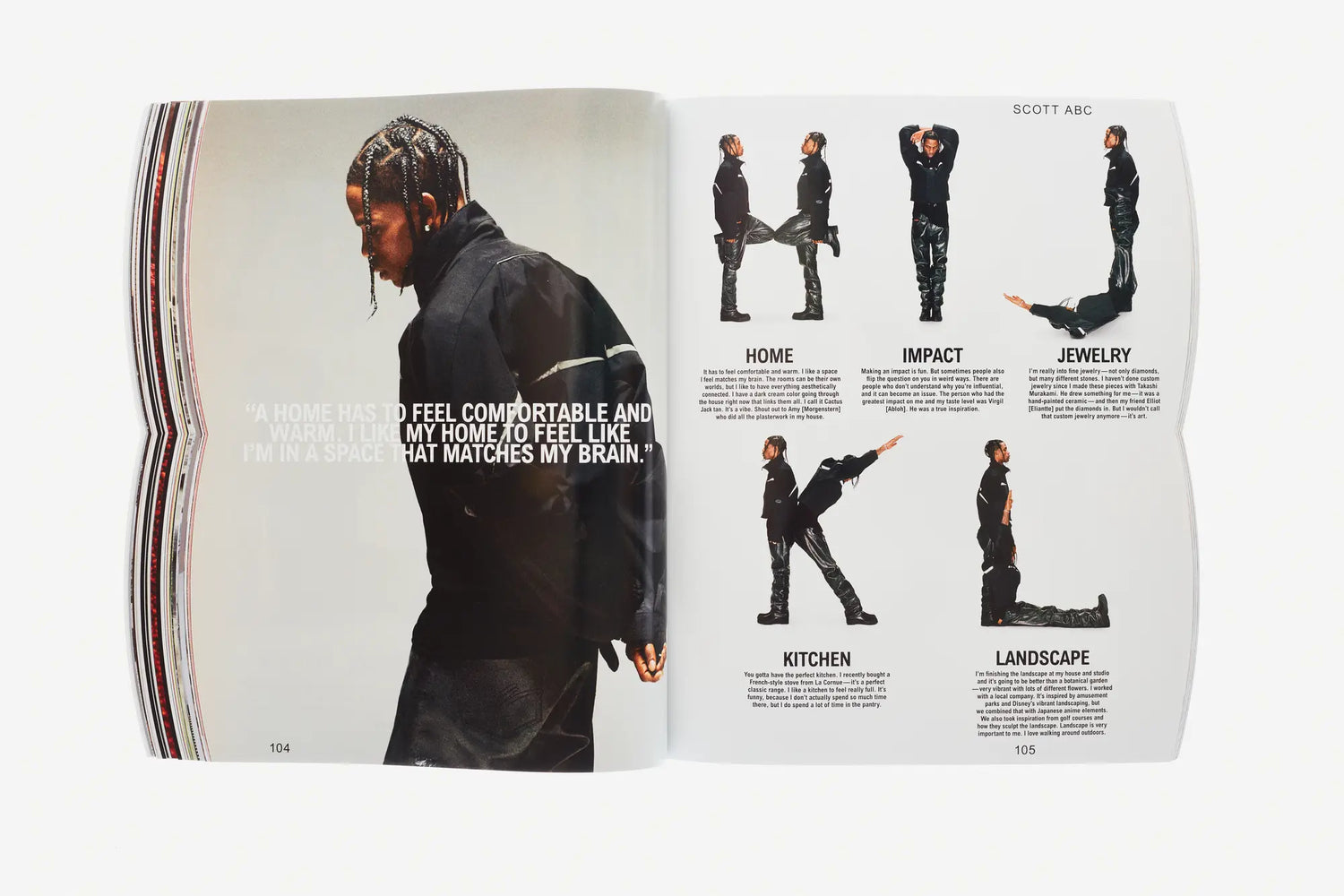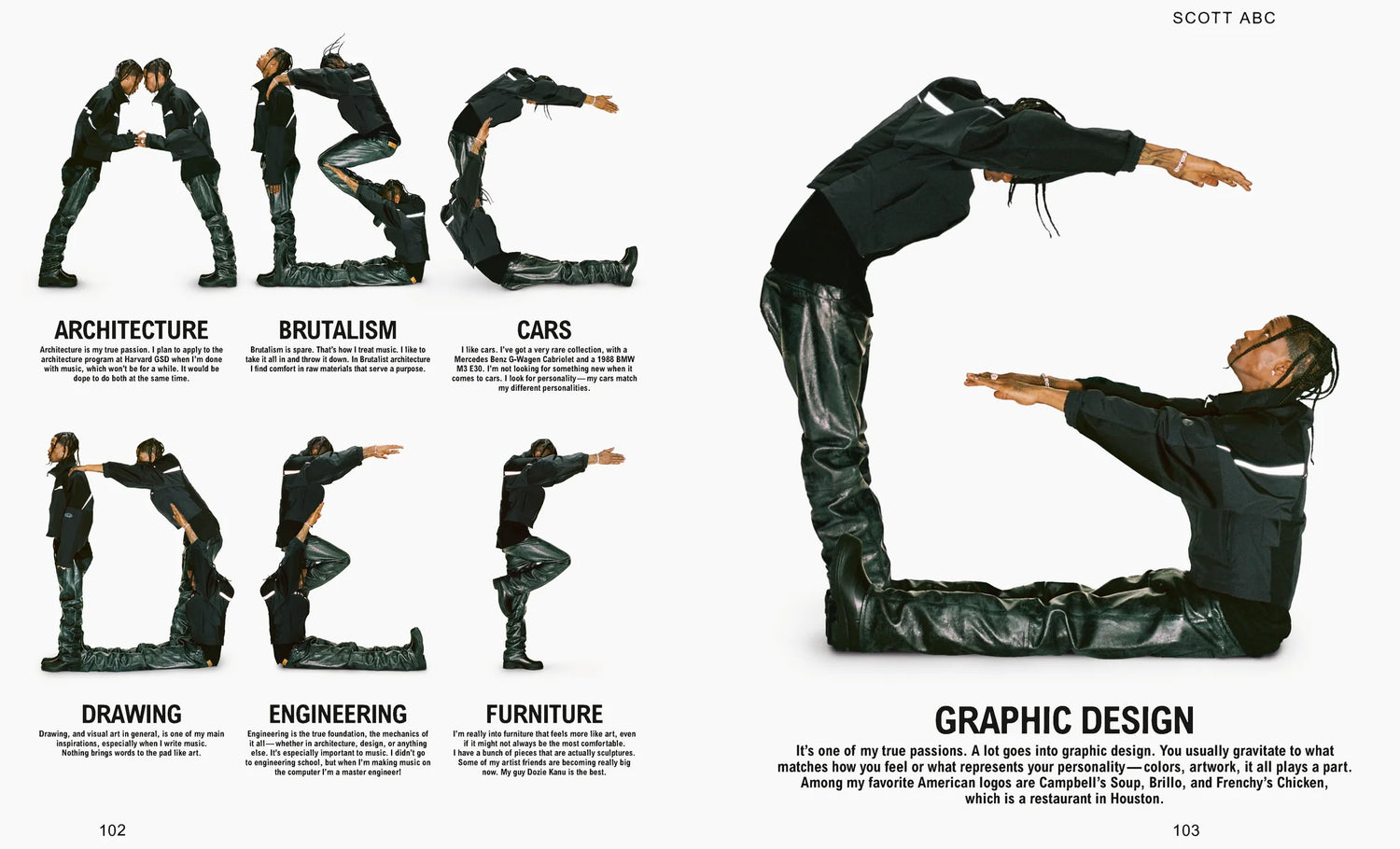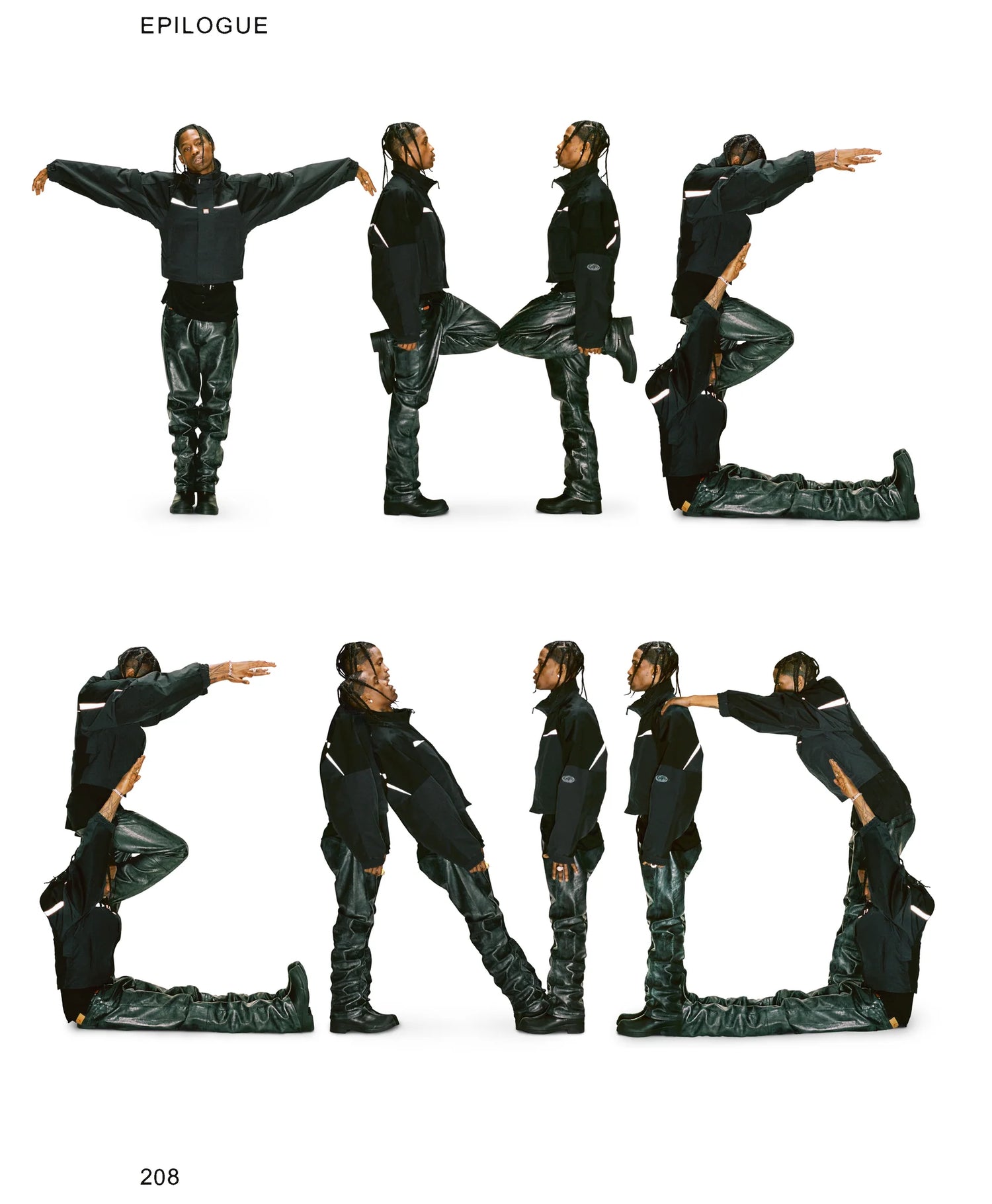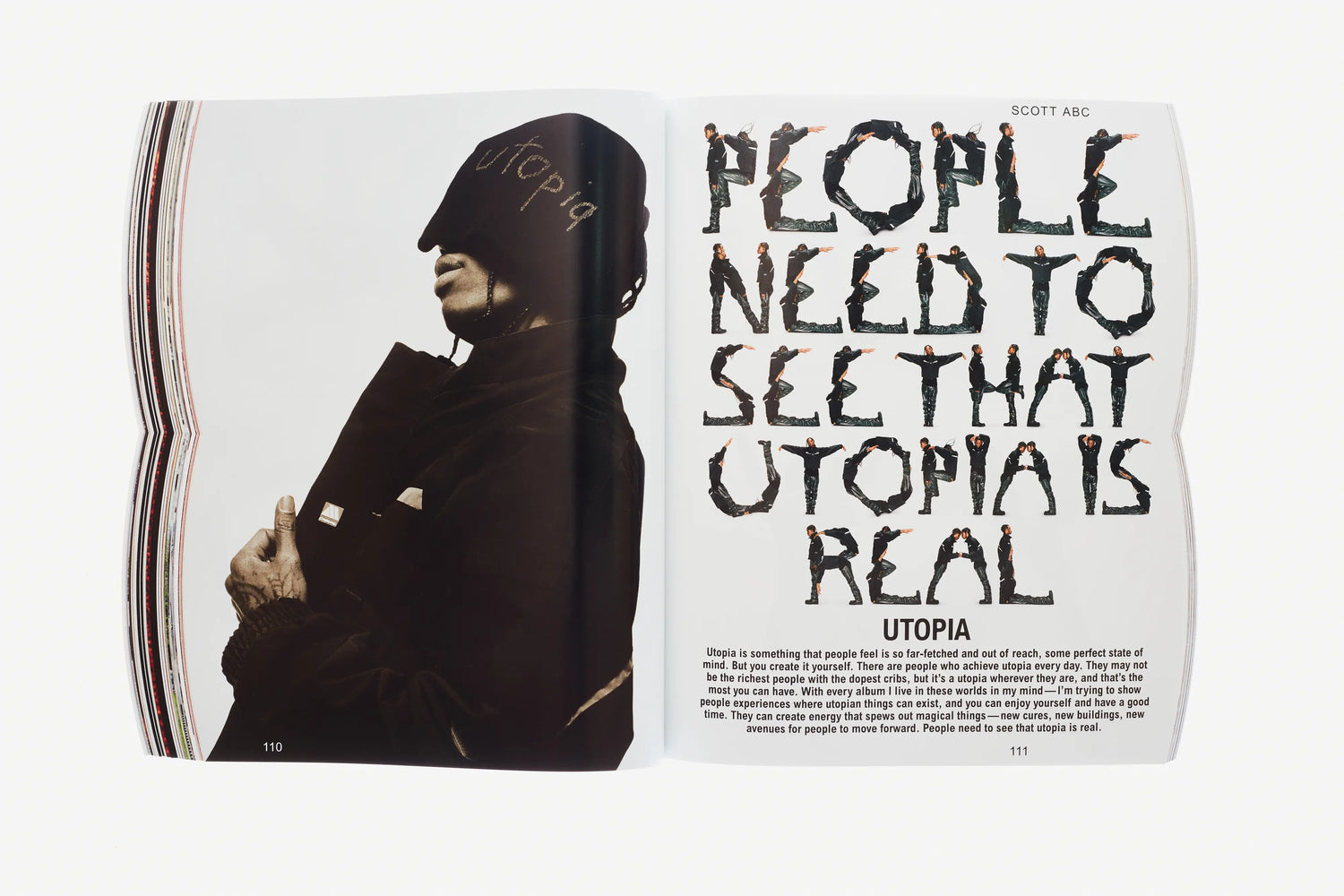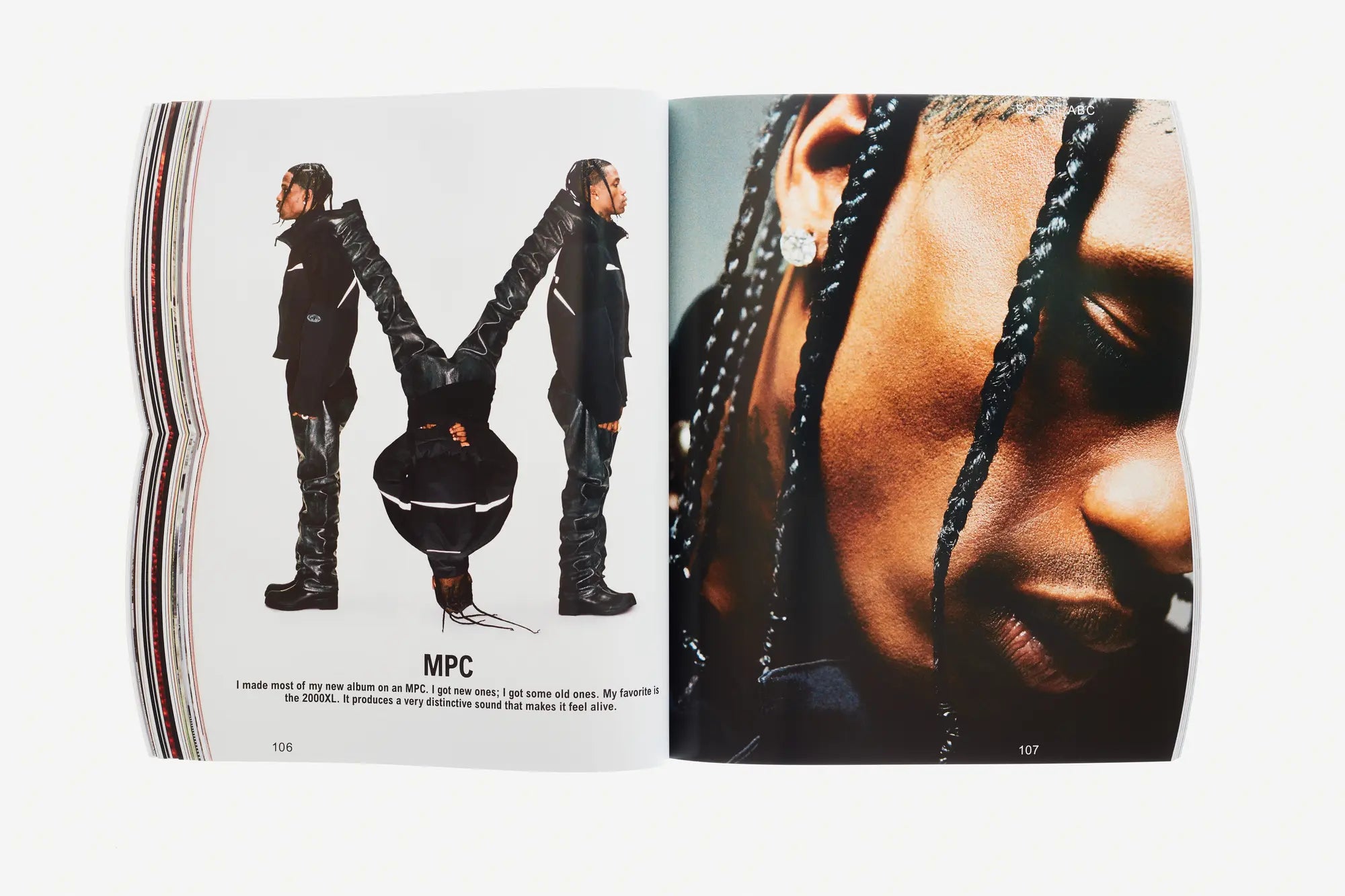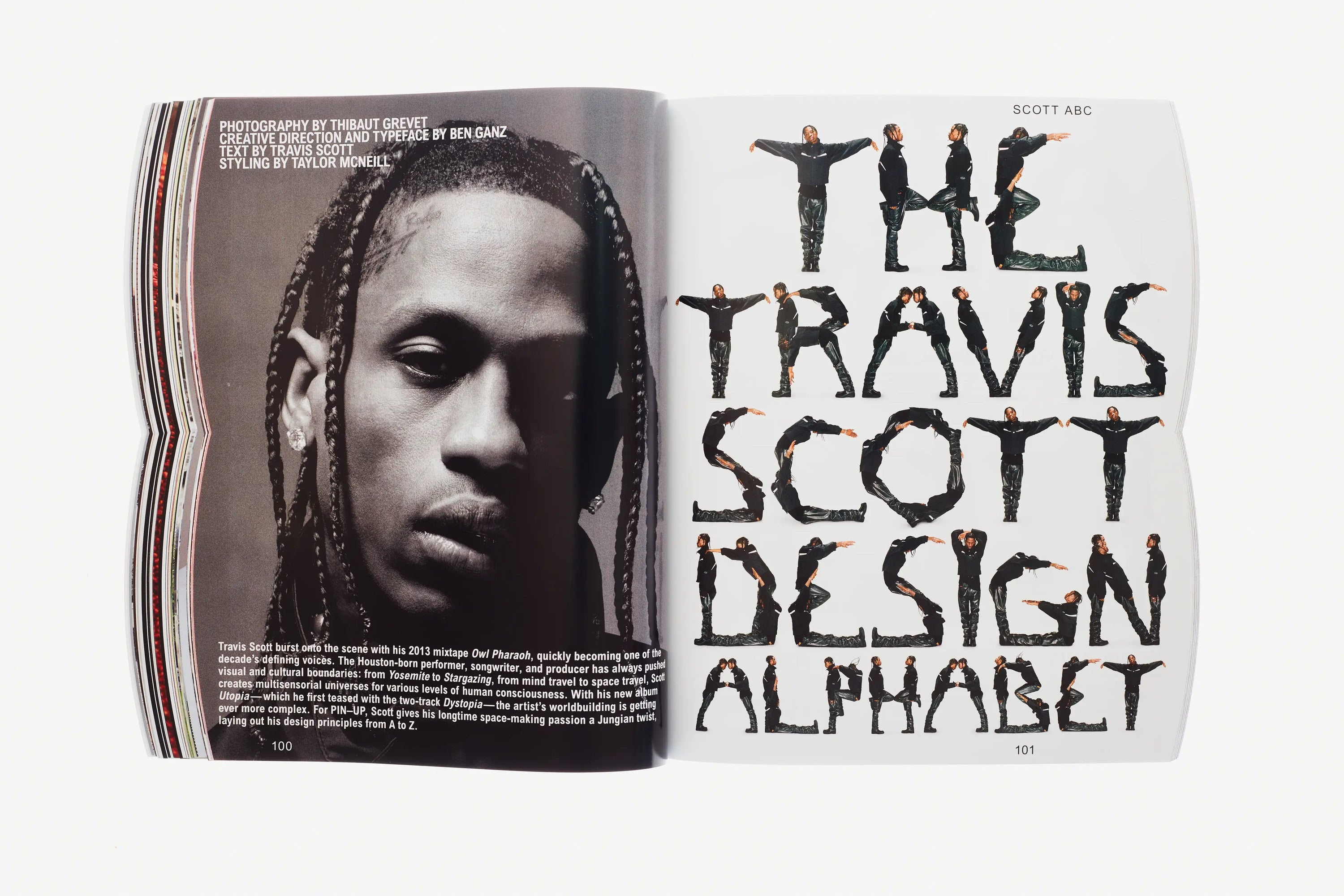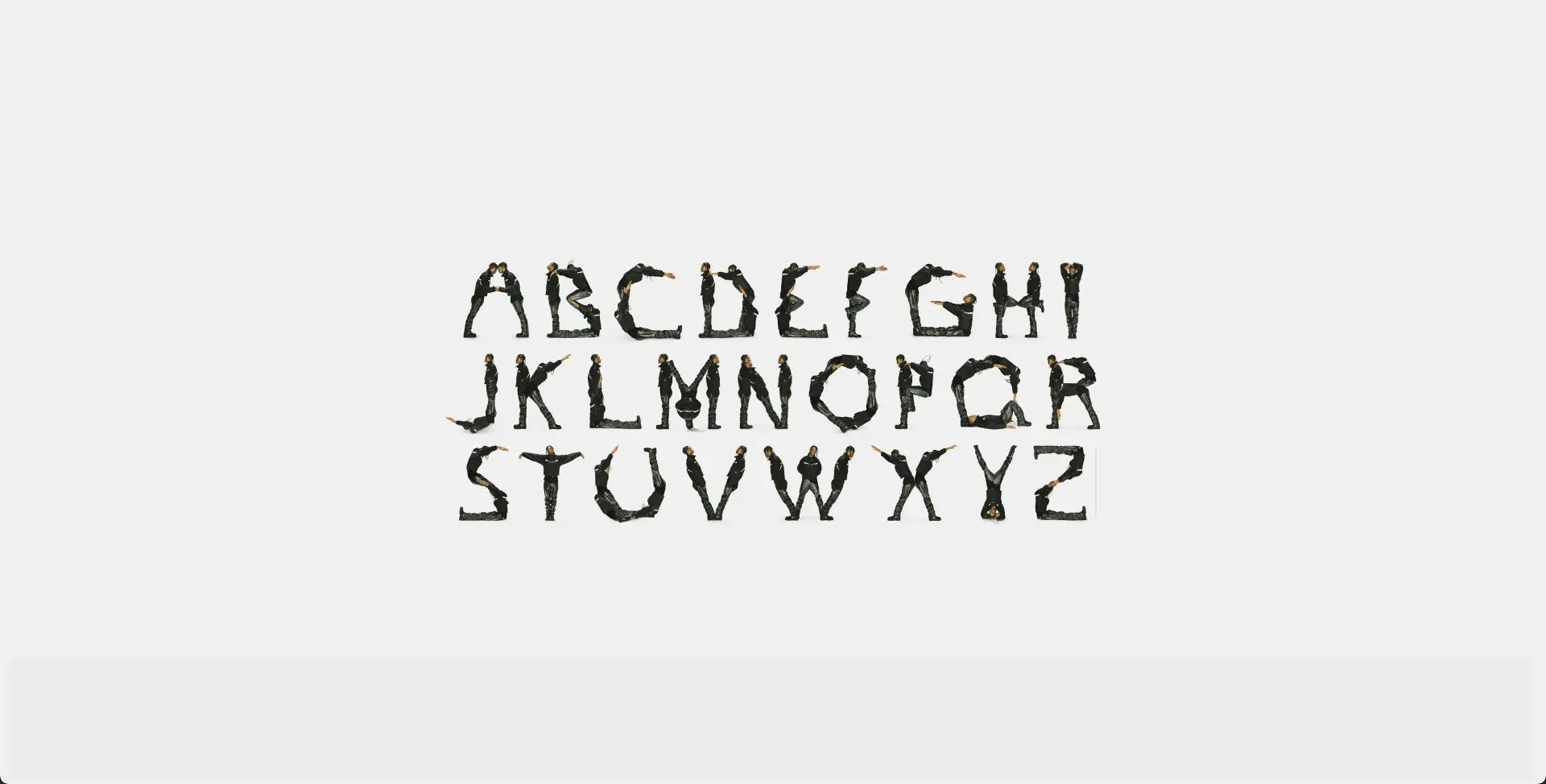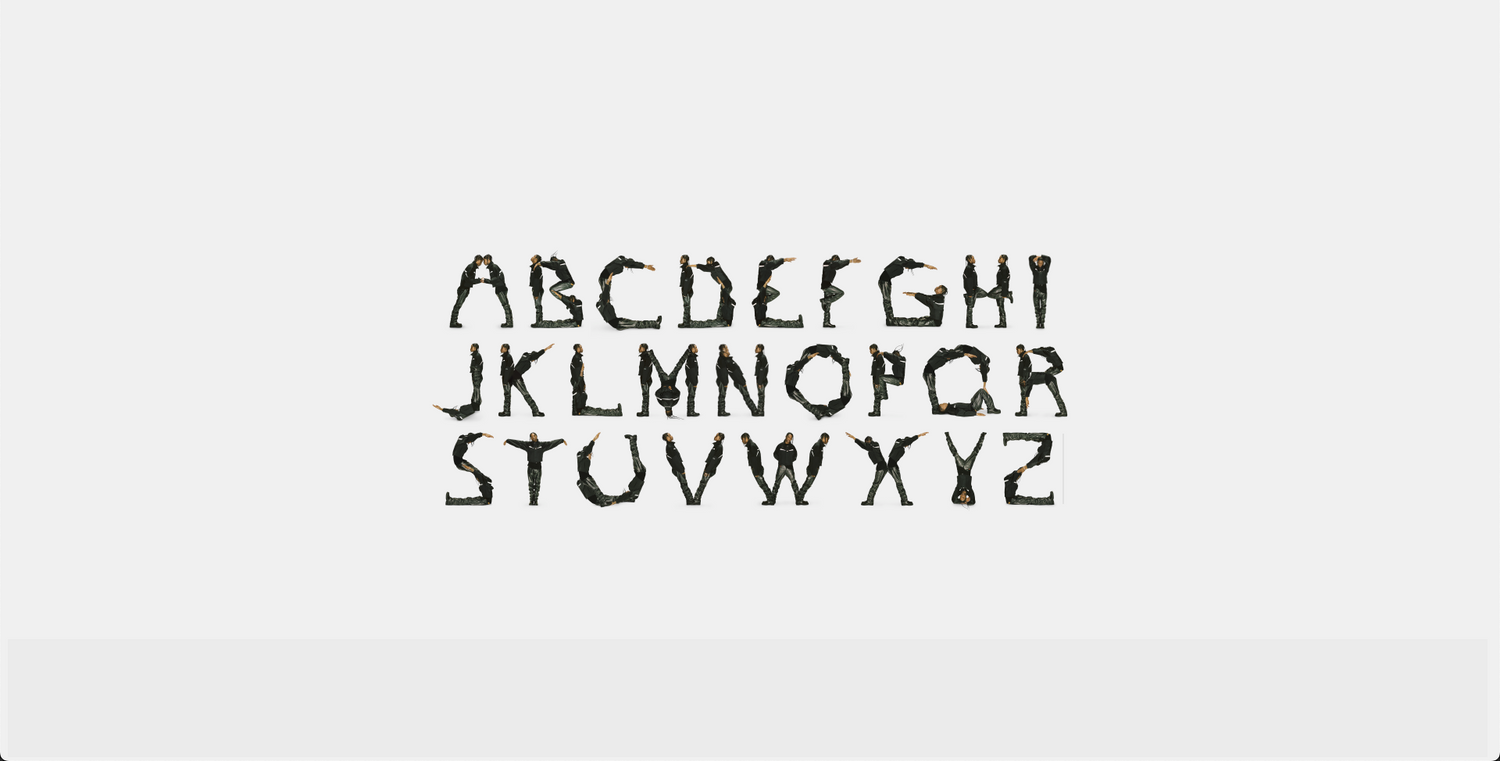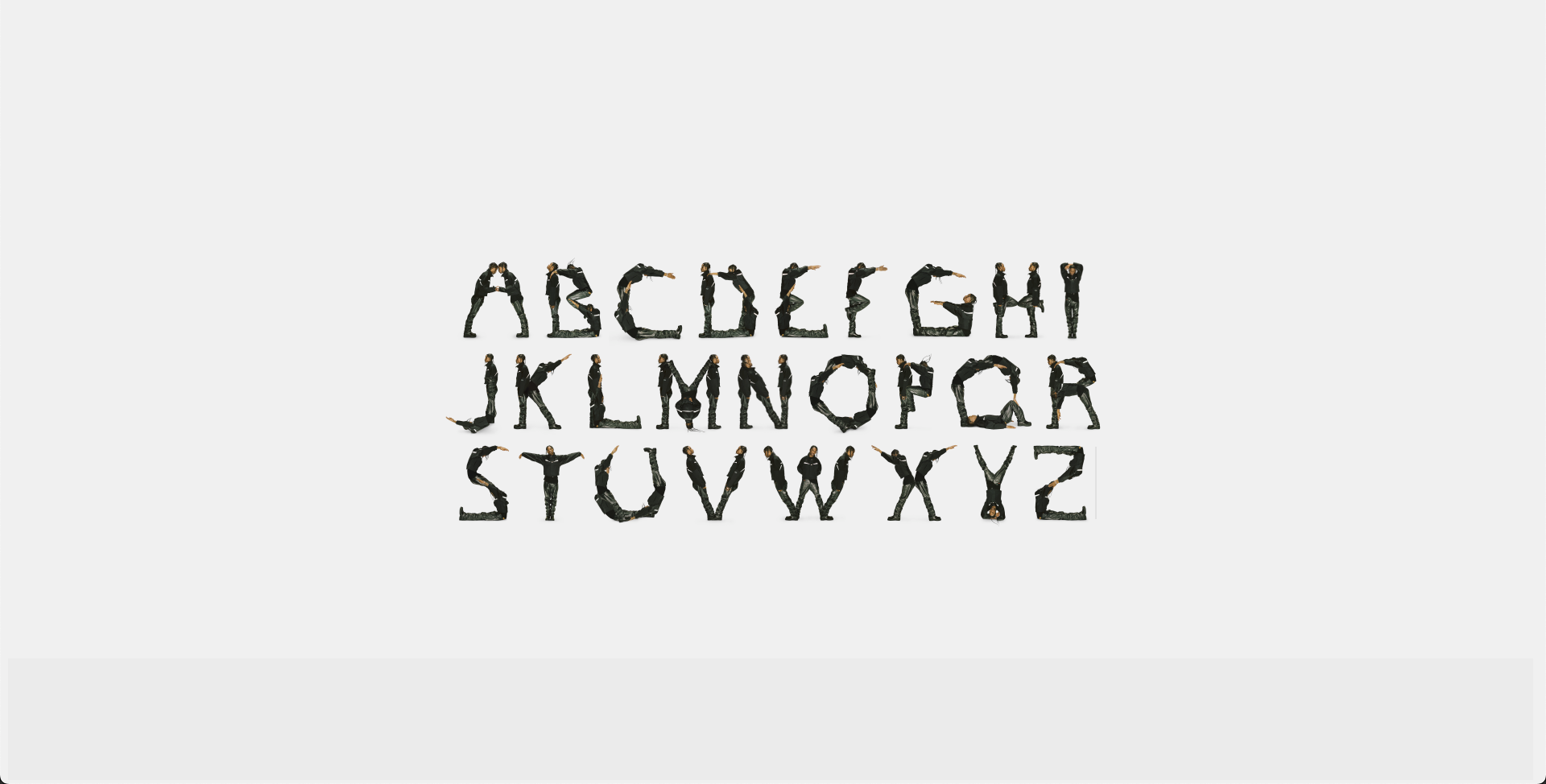
Travis Scott Utopia font by moonbear.shop displayed on a digital screen with stylized text in a modern, artistic style.
Travis Scott Utopia Font
Description
Travis Scott Utopia Font
Typeface Based on Travis Scott’s Pinup Magazine Font
Elevate your designs with this bold, futuristic typeface inspired by the Pinup Magazine web font, originally created for Travis Scott’s Utopia album. This custom font blends sleek, modern lines with the rebellious energy of high-fashion editorial design.
Whether you're a designer, musician, or creative brand, this Utopia-style font is perfect for bringing edge and sophistication to your work.
Font Features:
• Uppercase A–Z
• Numbers 0–9
• Punctuation + symbols
• Inspired by Travis Scott's Utopia album artwork
• Clean, modern editorial style with cultural edge
• Unique alternative to mainstream fonts
Design and Aesthetic Appeal
The Travis Scott Utopia Font is a visually striking typeface that blends modernity with artistic expression. Inspired by the unique style of Travis Scott's brand, this font features bold lines and geometric shapes offering a futuristic yet approachable look. It is perfect for creatives who want to add an edgy, contemporary vibe to their designs. Whether used in album artwork, posters, or digital media, this font elevates any project with its distinct charm and readability, making it a favored choice among designers looking to capture attention.
Versatility and Usage
This font's versatility makes it suitable for various applications, including branding, advertising, and multimedia content. The Travis Scott Utopia Font supports multiple weights and styles, allowing designers to experiment with boldness and spacing to fit different creative needs. From headlines to logos, the font maintains clarity and impact across both print and digital platforms. Its adaptability ensures it complements different design aesthetics, making it an essential tool for artists and marketers aiming to create memorable and stylish visuals.